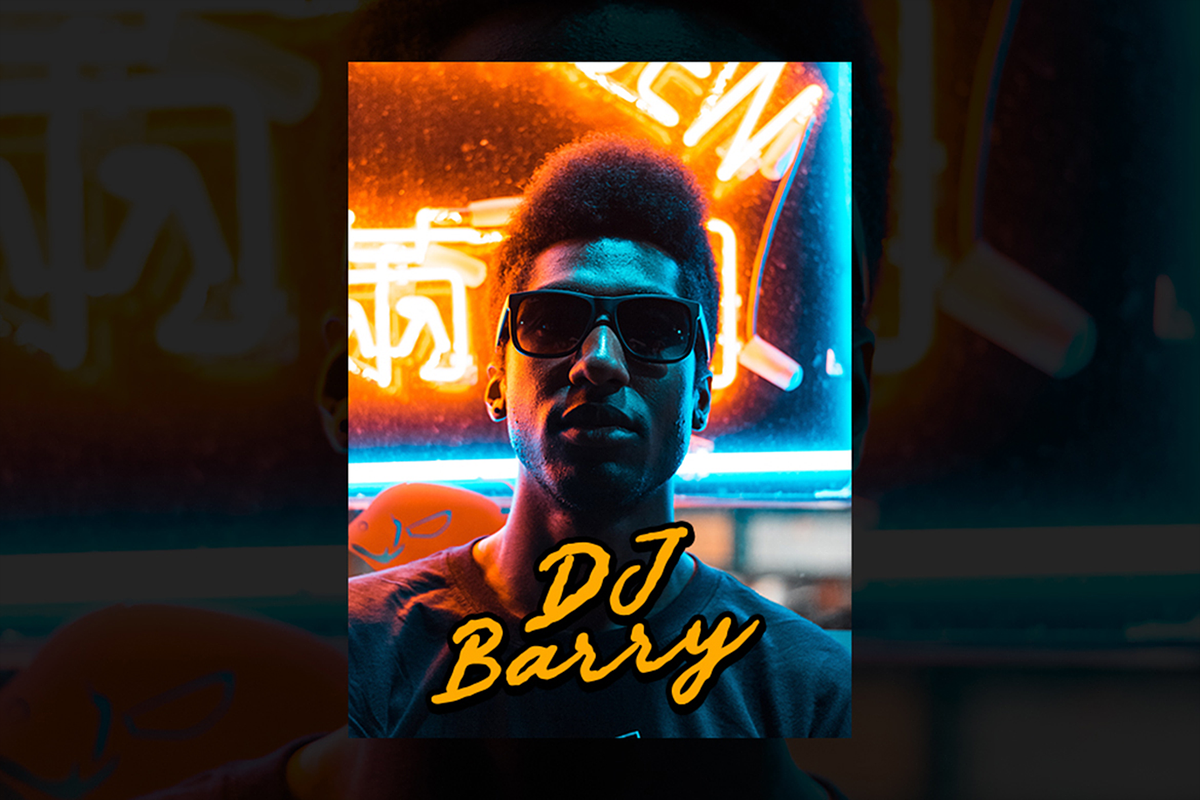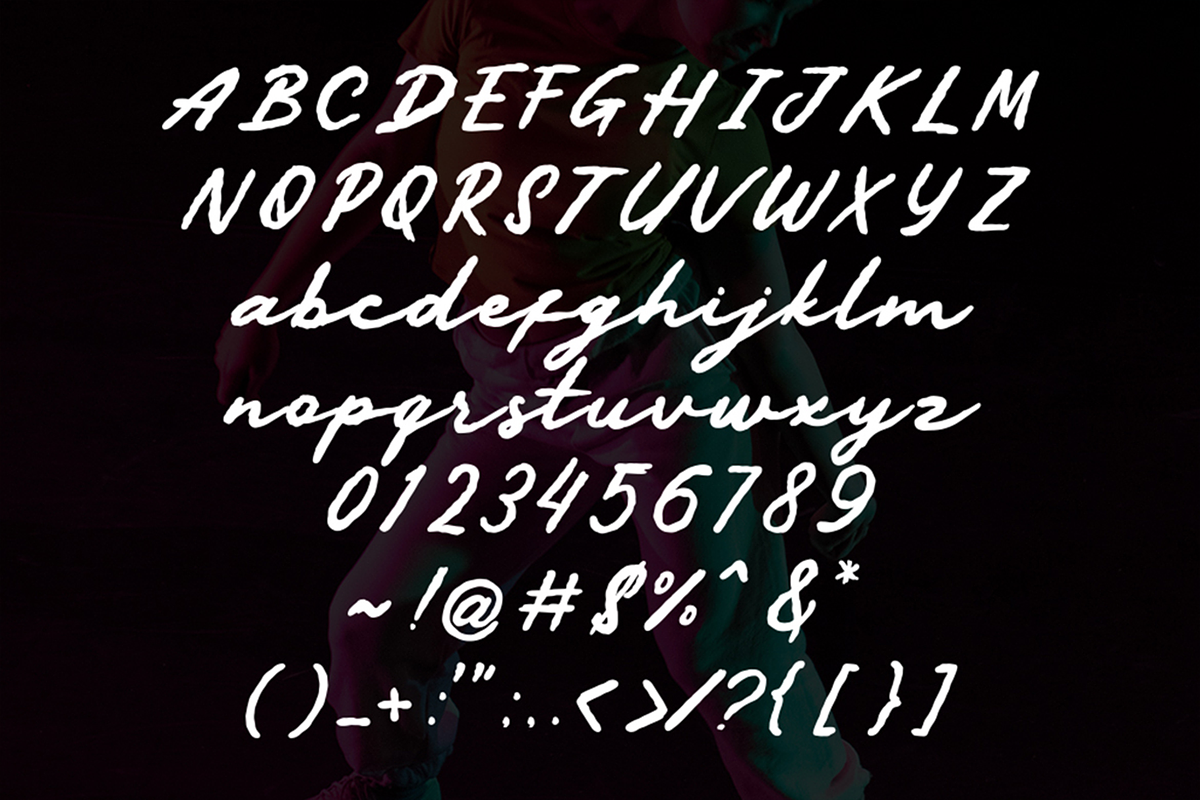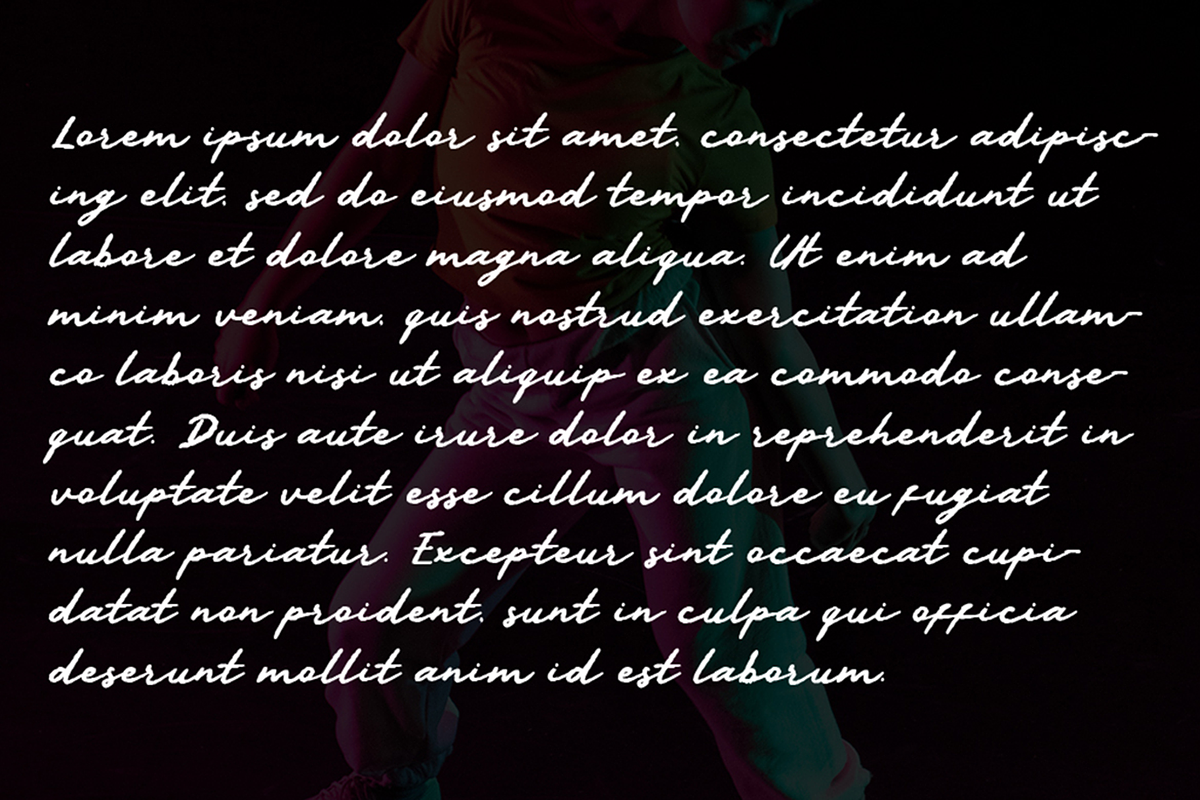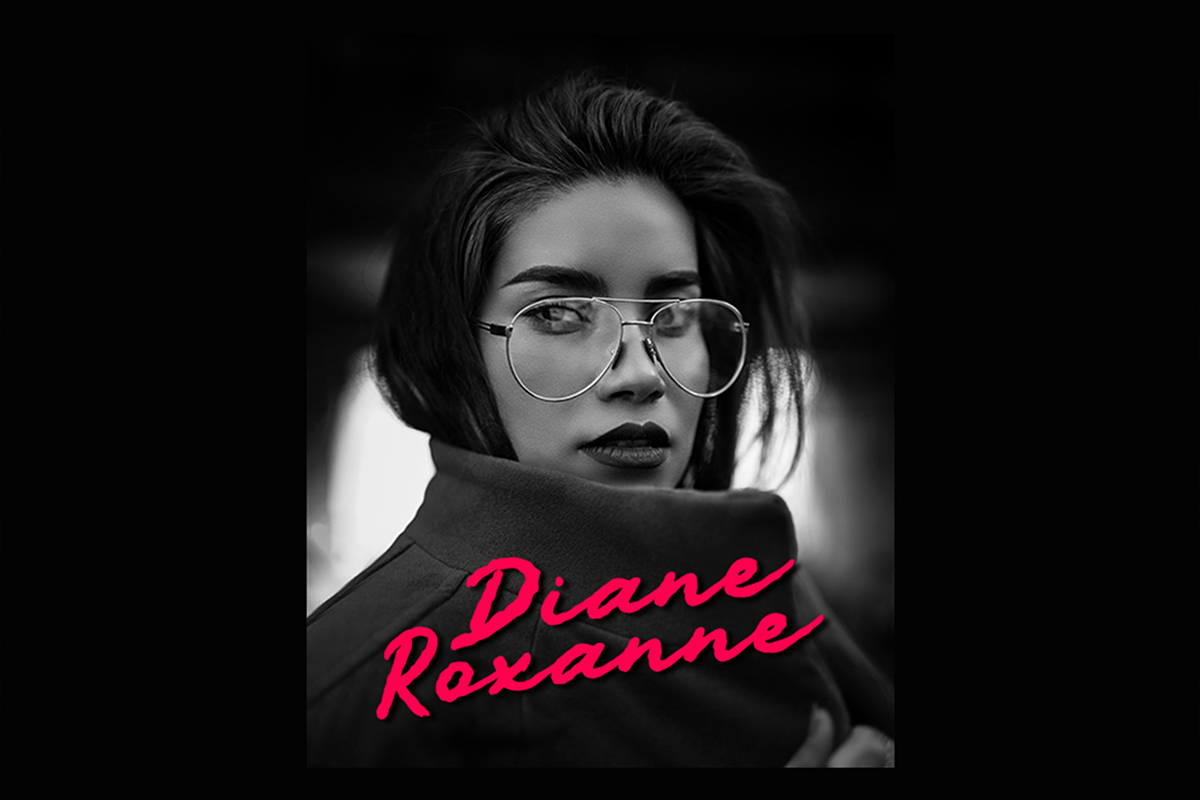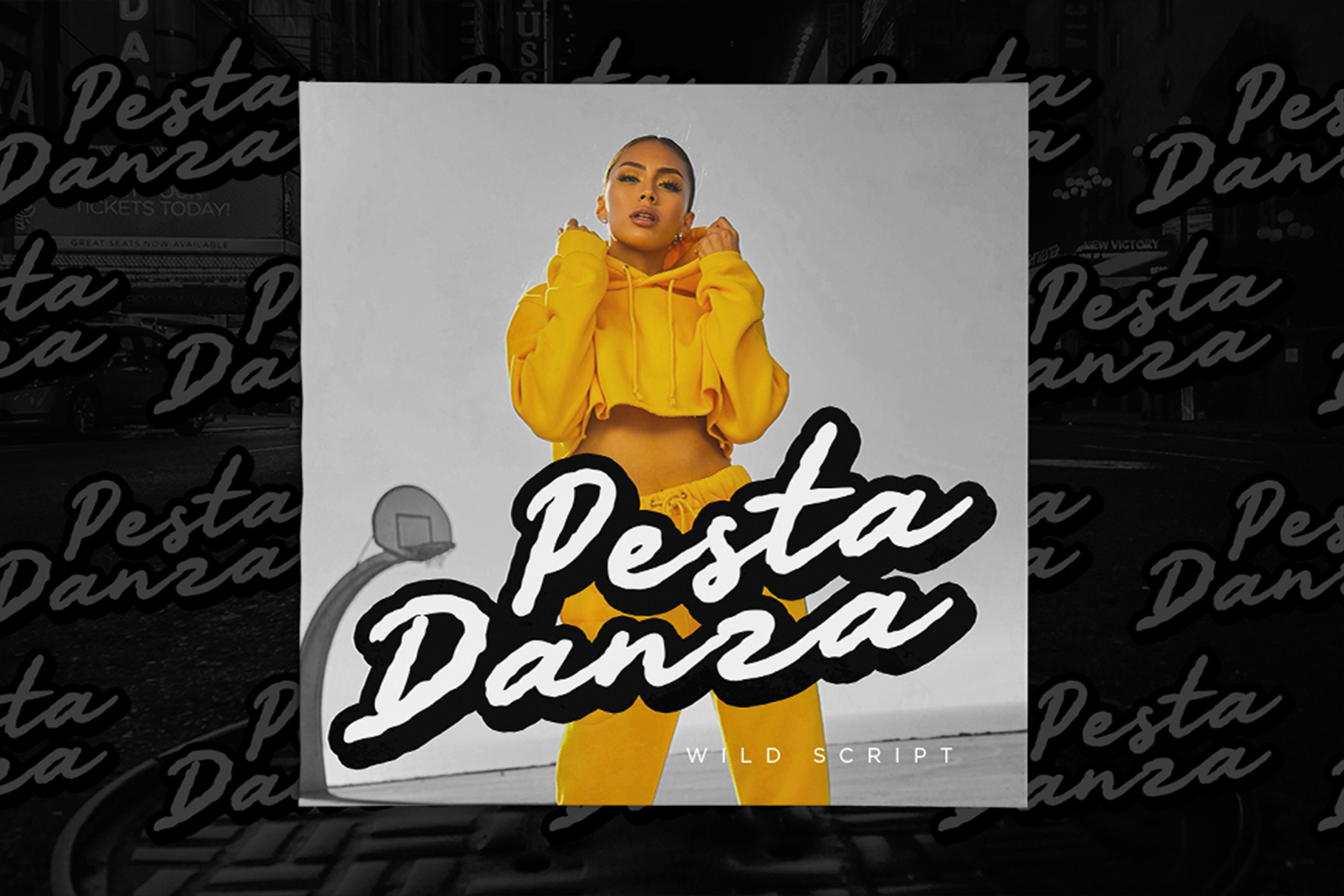
Pesta Danza – Wild Expressive Fonts
Unleash your inner wild soul with the Pesta Danza. A reckless script with handwriting based font to deliver your visual wilder, bolder, and louder. Perfectly fit for artist logo, musician logo, album artwork, poster, vinyl, digital content, clothing company, stickers, merchandise, you name it.